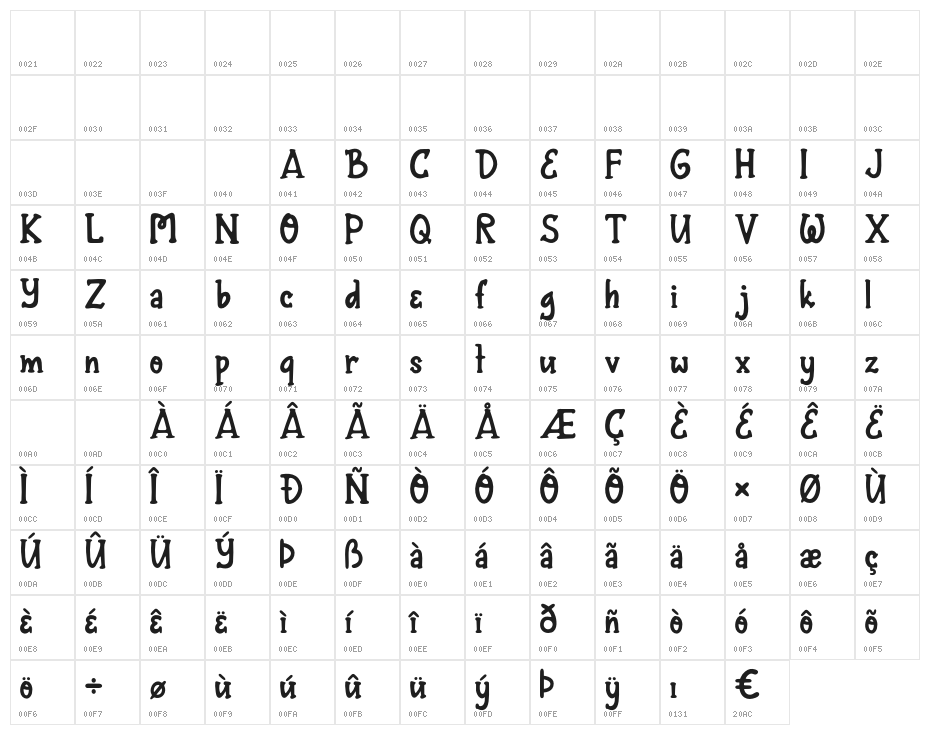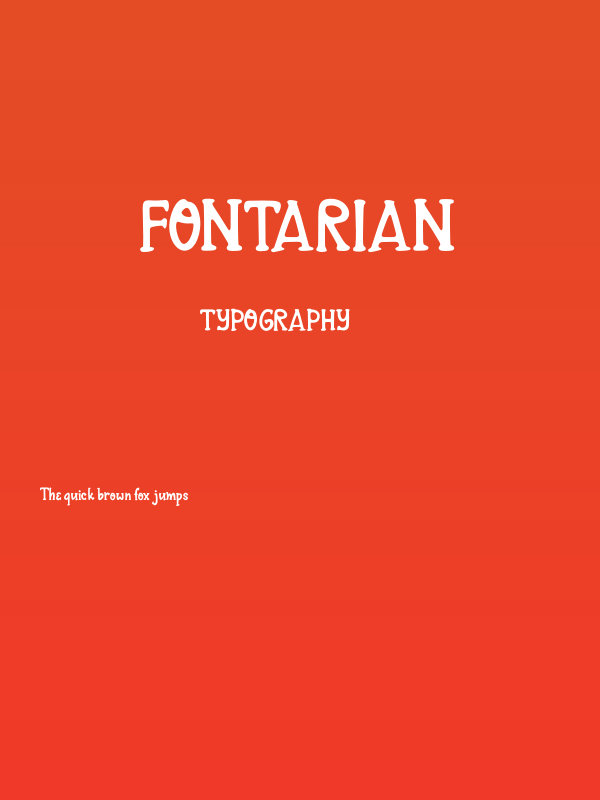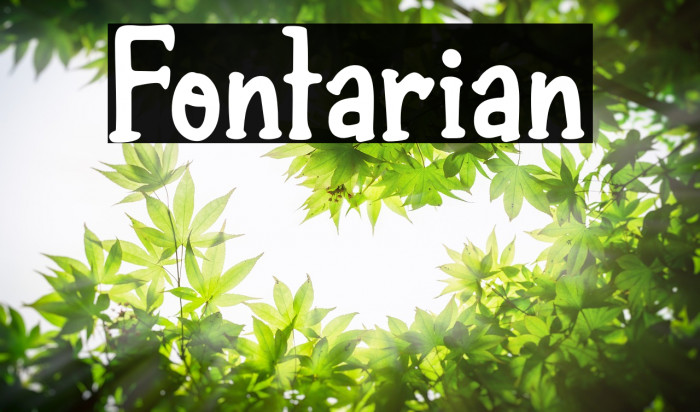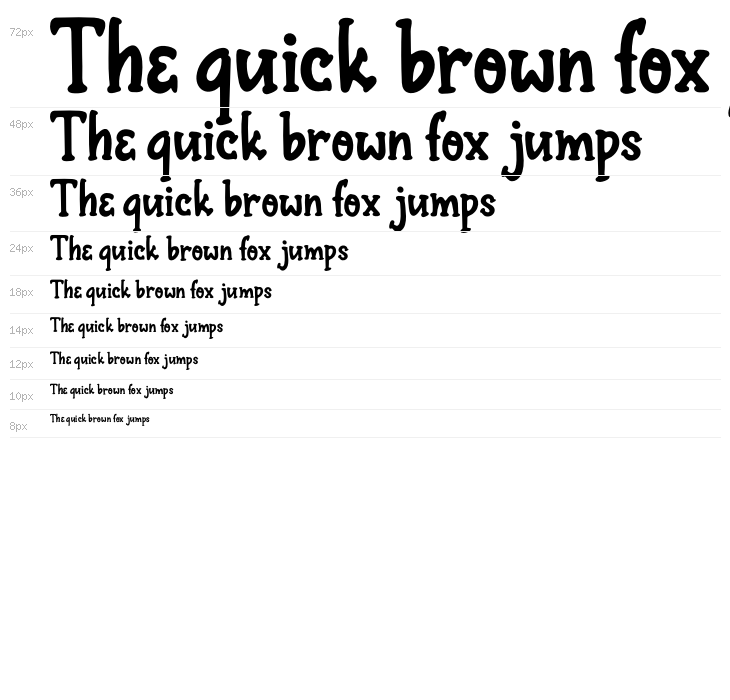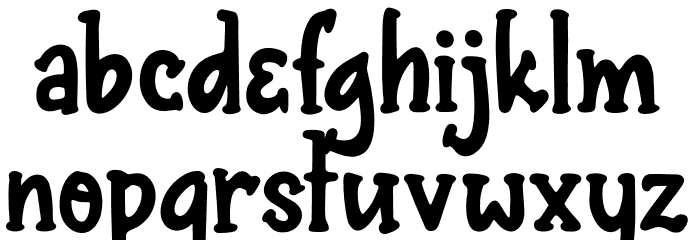
Fontarian Font
Fontarian Description
This font features a playful and whimsical design with a hand-drawn aesthetic. The characters are bold and rounded, with a slightly irregular baseline that adds to its charm. The uppercase and lowercase letters maintain a consistent style, with a notable emphasis on curves and loops. The font's unique personality is evident in its distinctive letterforms, such as the quirky 'g' and the looping 'y'. It is well-suited for creative projects that require a touch of fun and individuality.